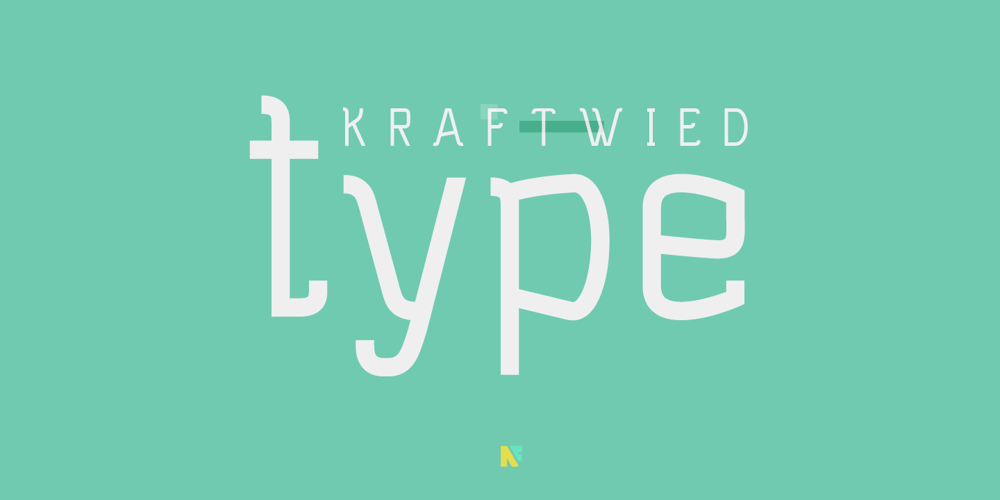
Kraftwied Font Family was designed by Alexey Makarov and published by Alexey Makarov. Kraftwied contains 1 styles and family package options. An original flat font, light and clean. Works best for accents and any small blocks of text. There are over 1000 kerning pairs to ensure that the flow of the font is natural and easy to work with. Language support: Contains full set of Latin alphabet, including diacritical marks for European languages and Cyrillic alphabets.